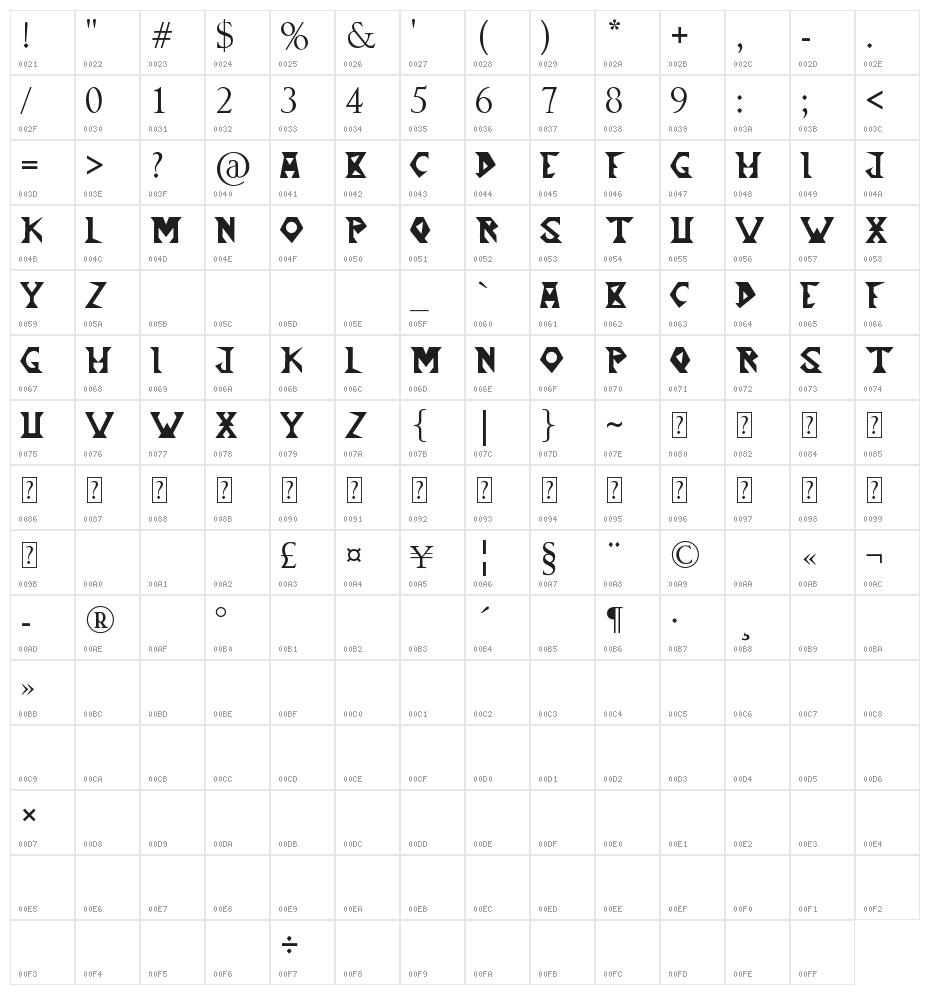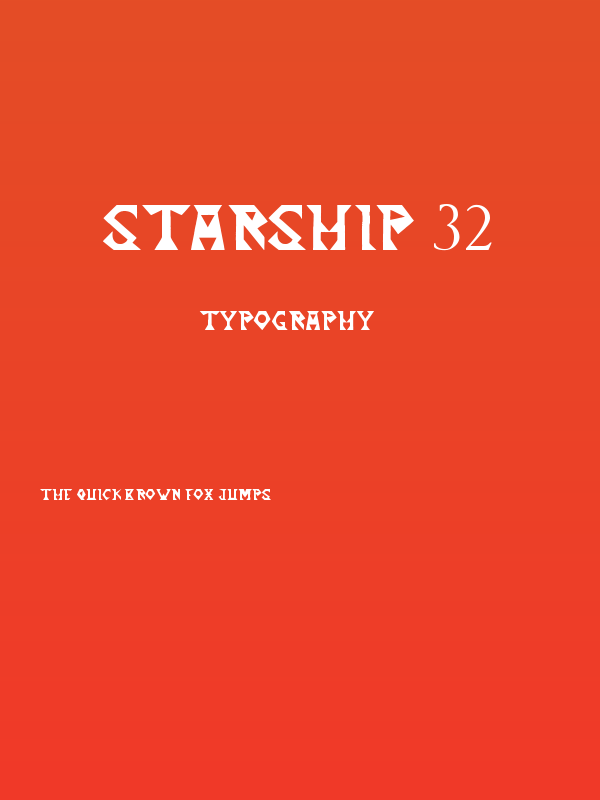
Starship 32 Font
Starship 32 Description
This font features a bold, geometric design with sharp angles and a futuristic aesthetic. The uppercase letters are particularly striking, with a unique interplay of thick and thin lines that create a dynamic visual impact. The lowercase letters maintain the same angular style, ensuring consistency throughout the typeface. Numbers are crafted with a similar attention to geometric precision, making them stand out in any design. The special characters complement the overall style, adding versatility to the font's use. This typeface is ideal for projects that require a modern and edgy look, such as sci-fi themed designs, technology branding, or innovative product packaging.